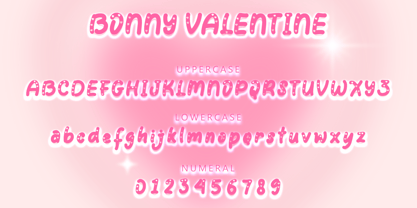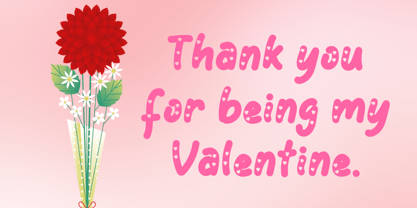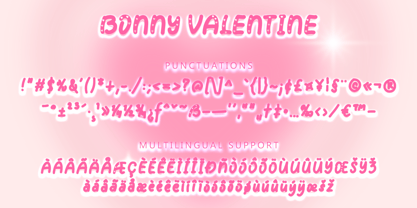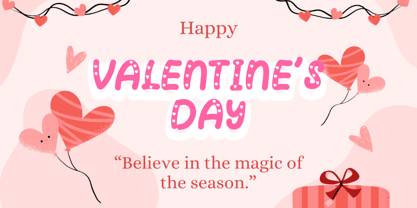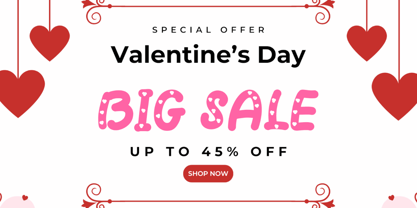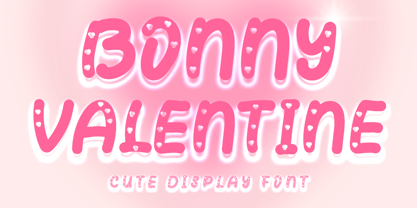
Bonny Valentine
by Yoga Letter
The Bonny Valentine Font Family was designed by Isroni Yoga Prasetya and published by Yoga Letter. Bonny Valentine contains 1 styles. More about this family
"Bonny Valentine" is a cute and beautiful display font. It comes with uppercase, lowercase, numbers, punctuation, and multilingual support. It is perfect for use on Valentine's Day, wedding, birthday, banner, poster, print, branding, sticker, poster, Christmas, winter, and more.